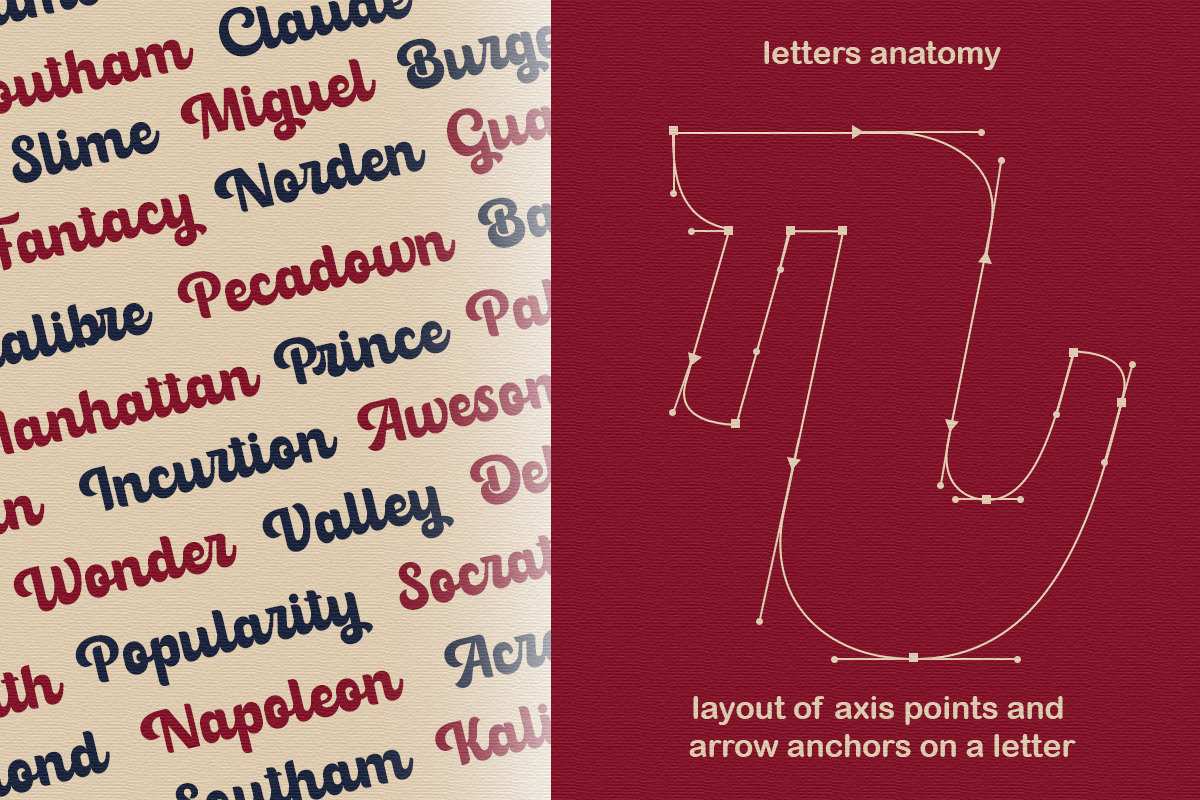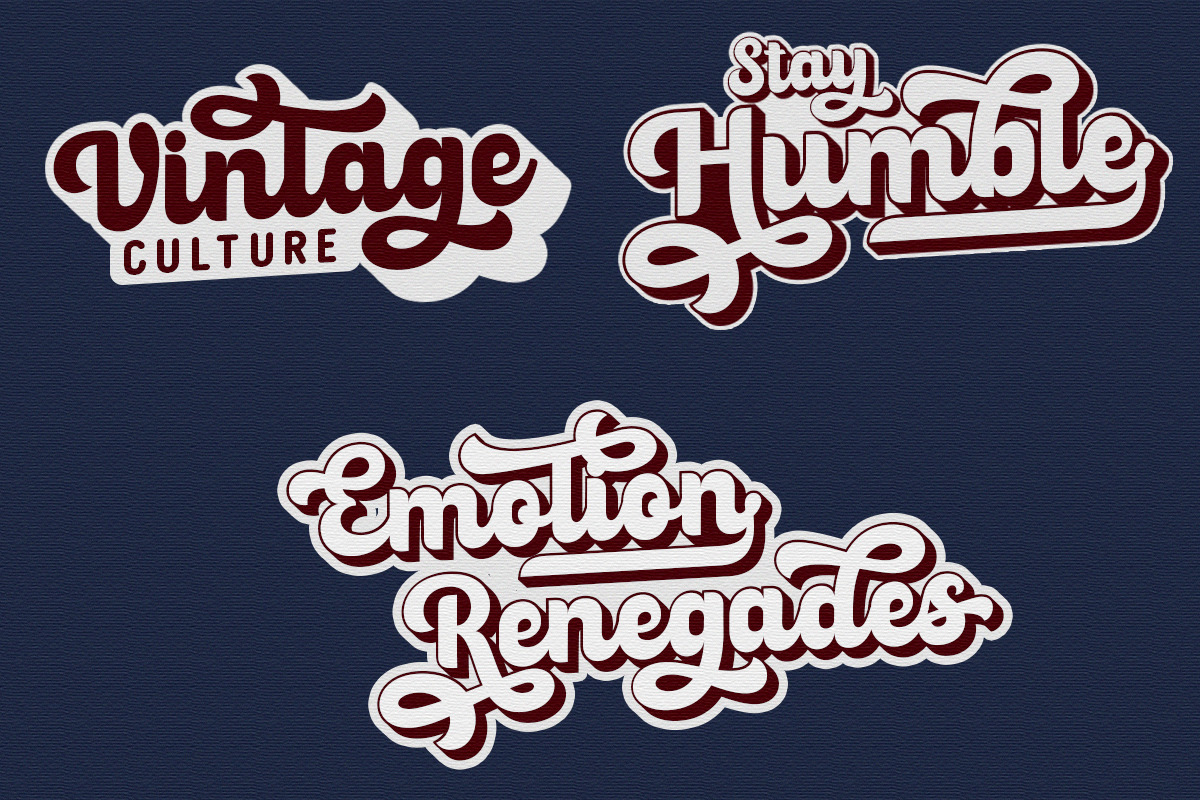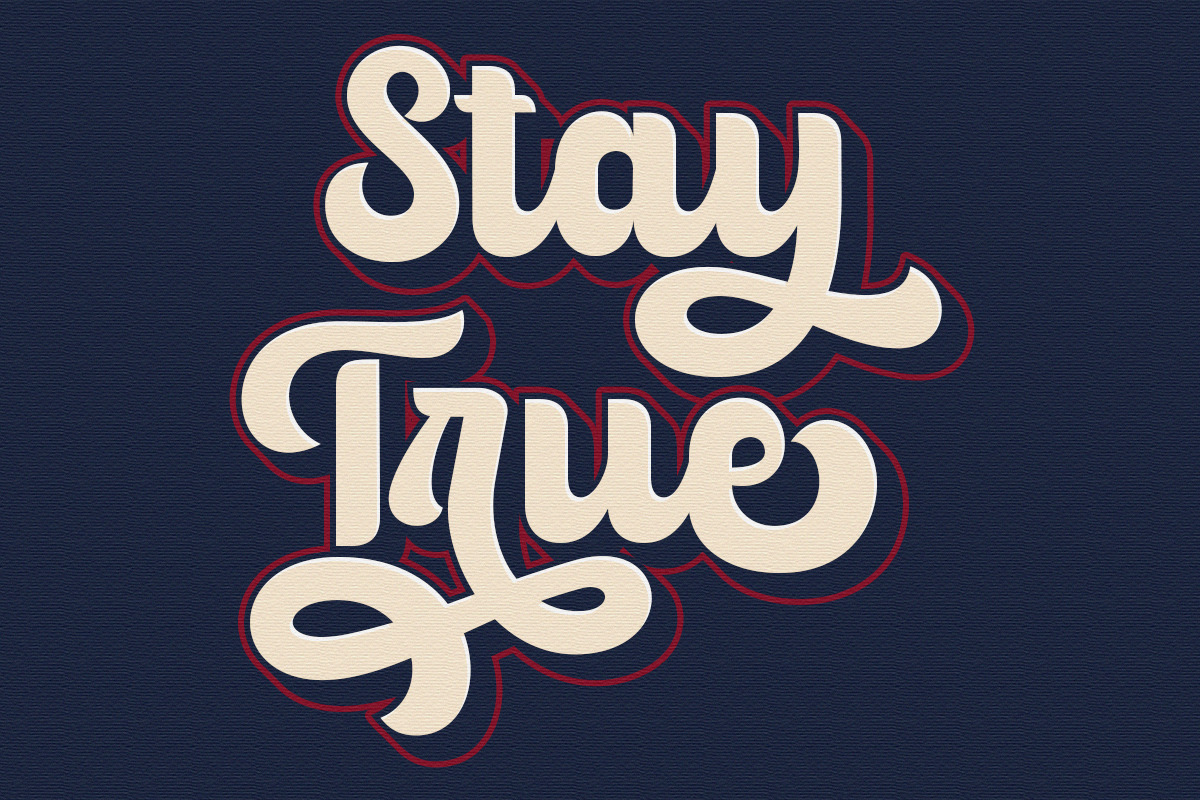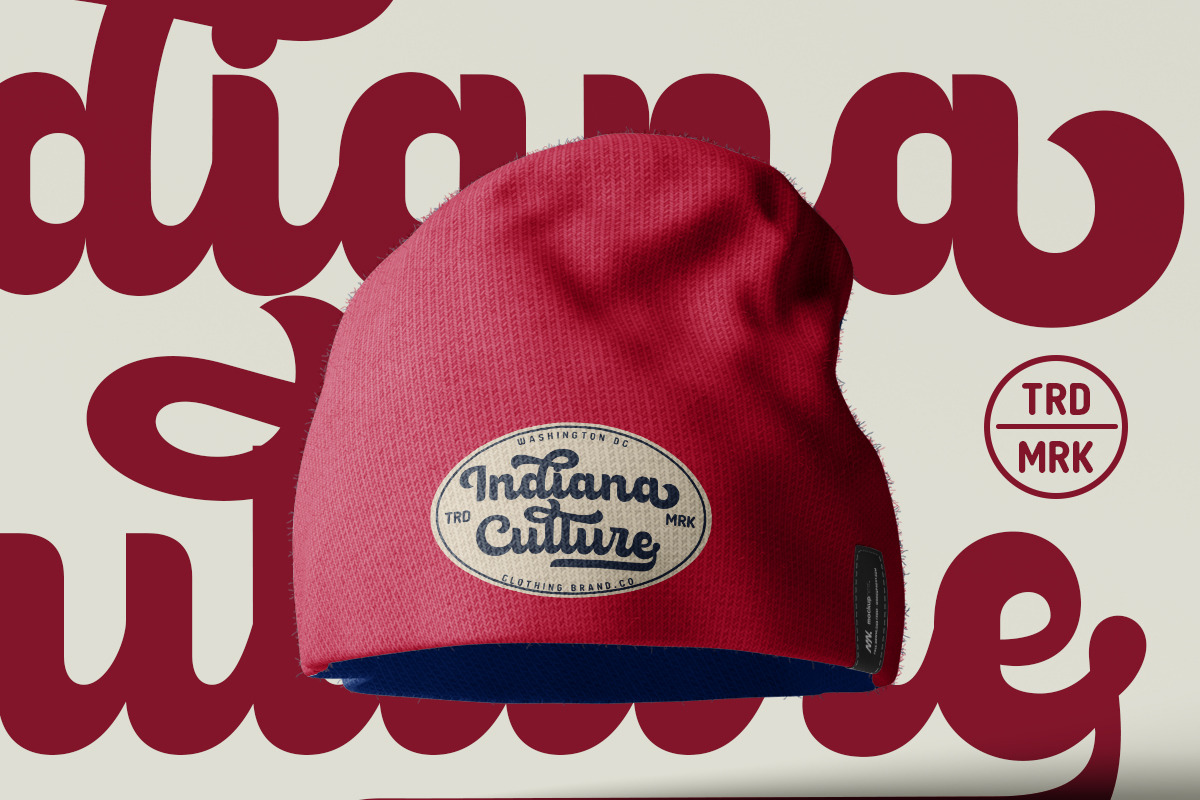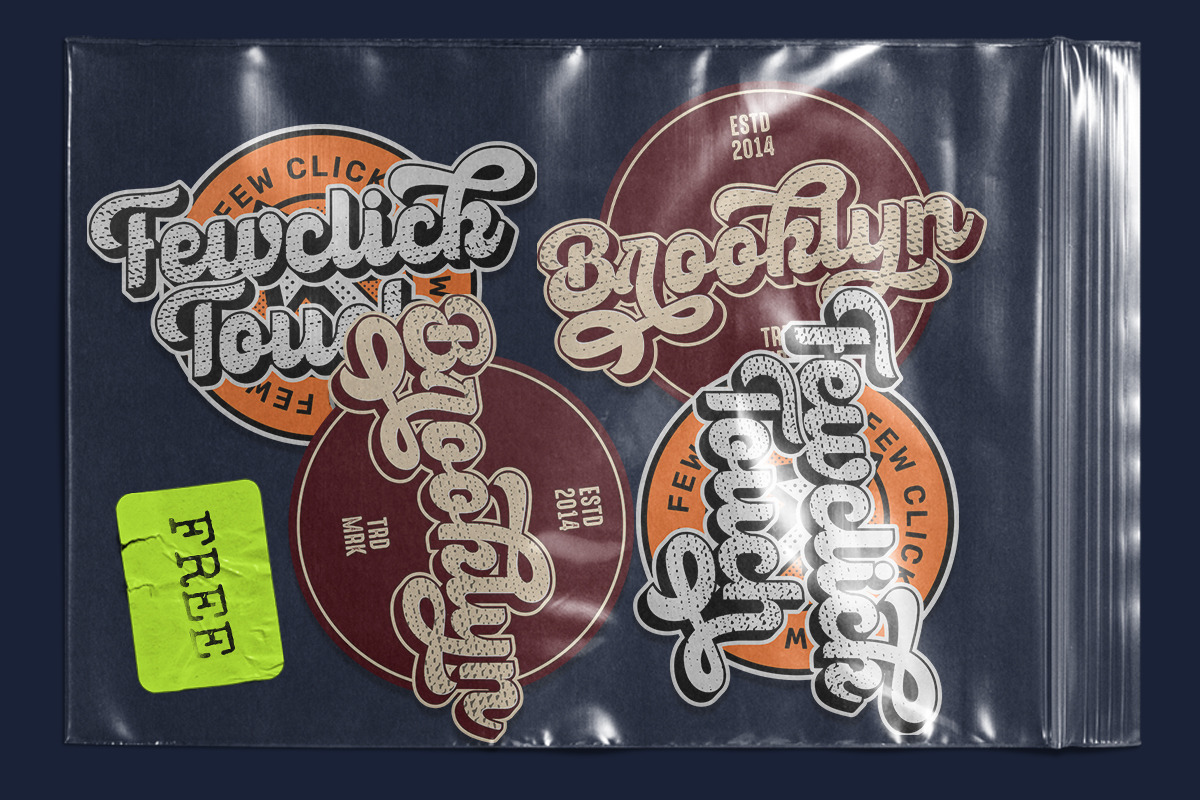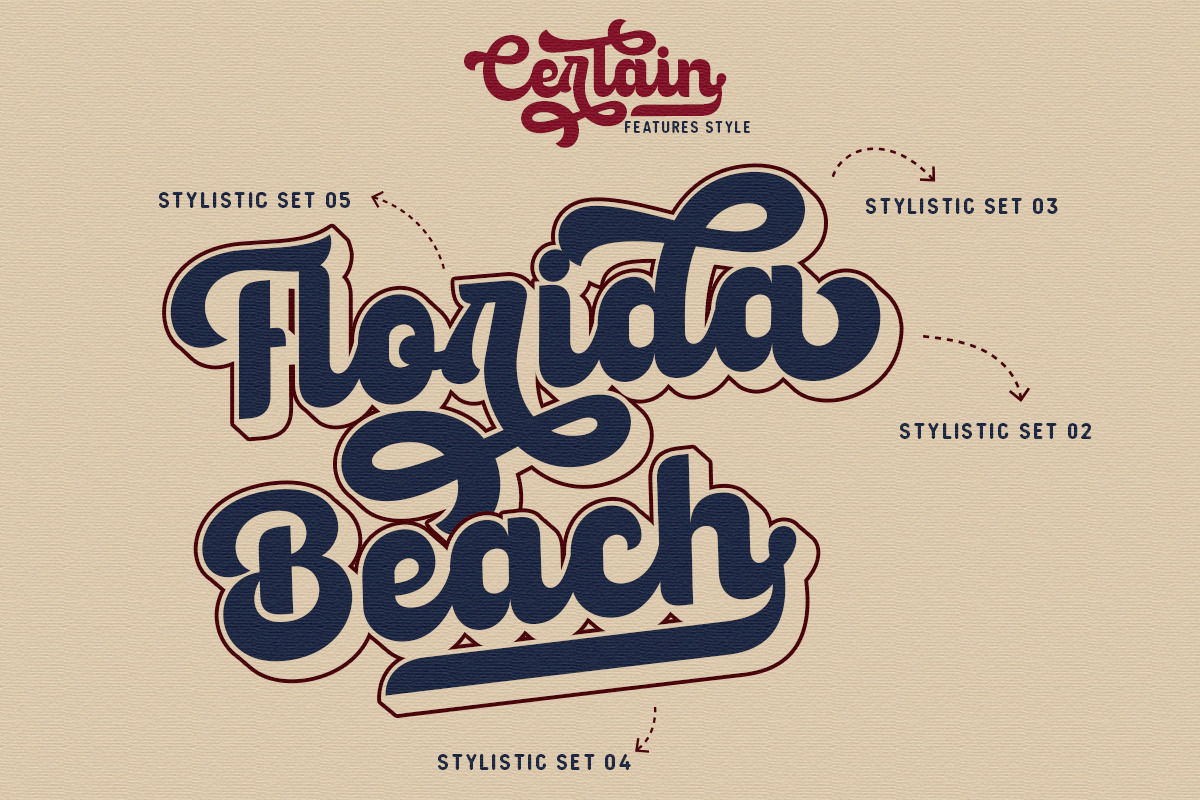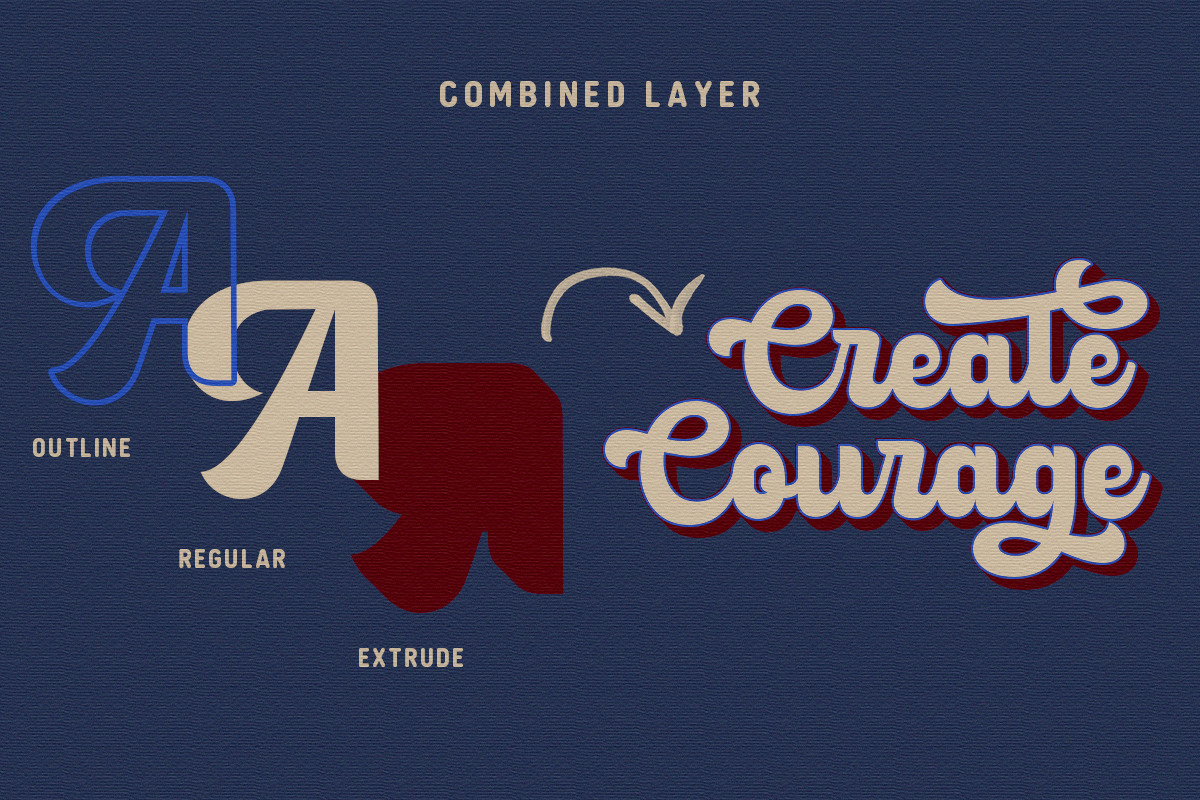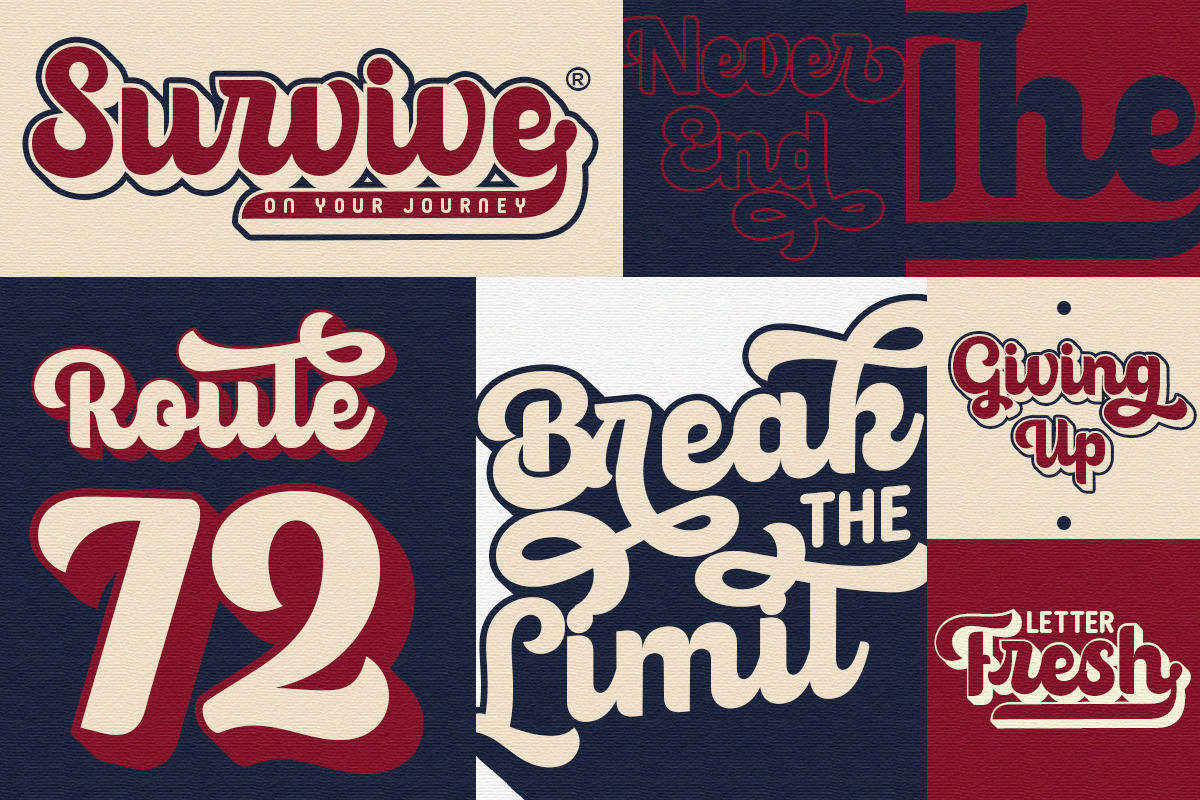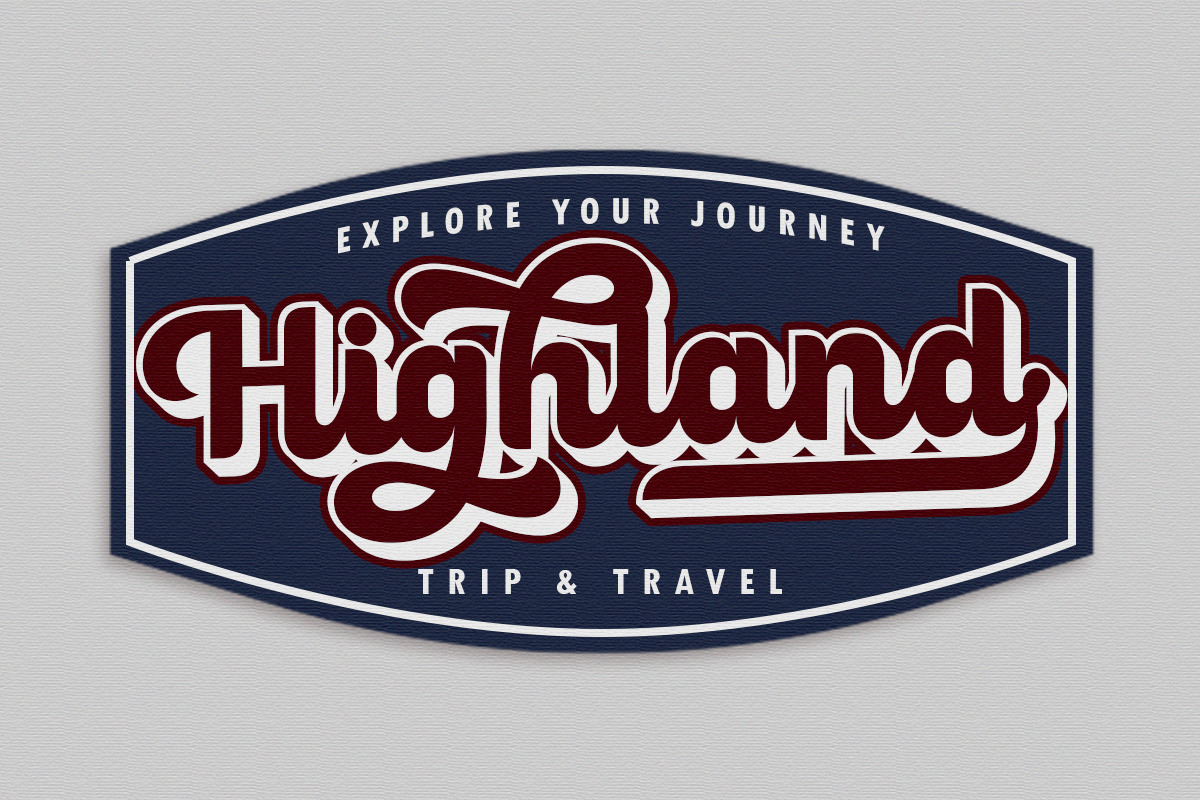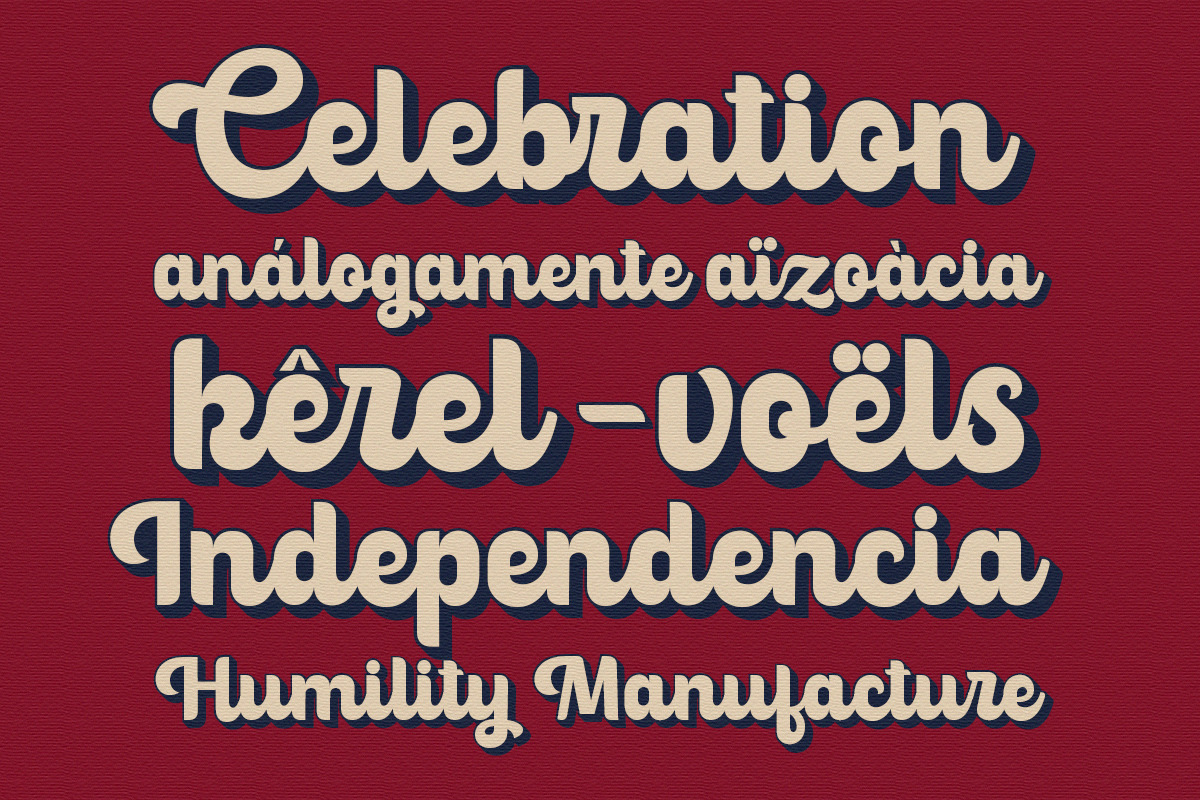
Certain - Bold Script
Introducing Certain A bold retro script that will take you back to the 60s. This typeface has an extrude version so you can create a retro effect font easily. This font is very suitable for application, especially on logos, and various other formal forms such as invitations, labels, logos, magazines, books, greeting/wedding cards, packaging, fashion, make up, stationery, novels, labels or all kinds of things. advertising purposes.